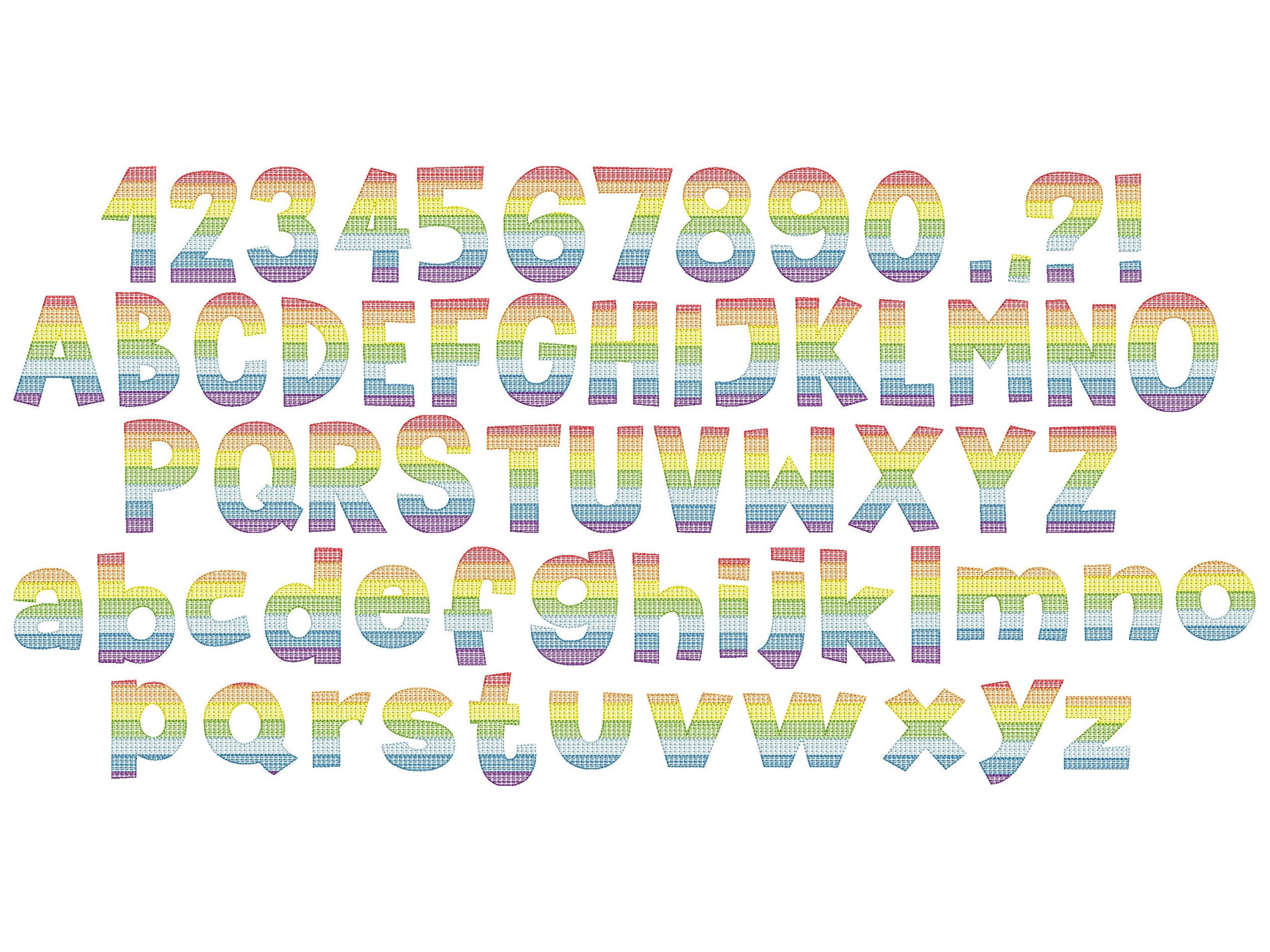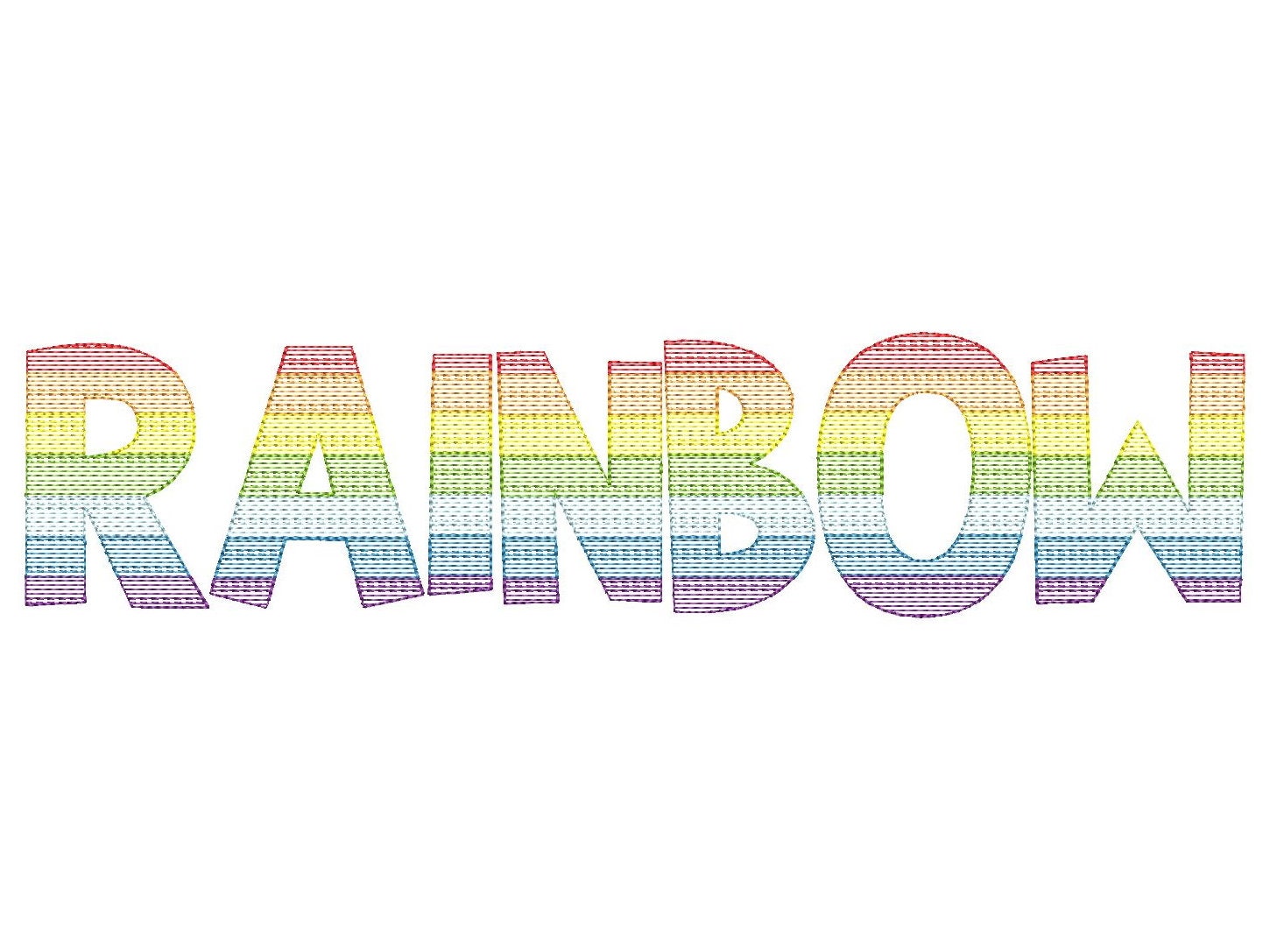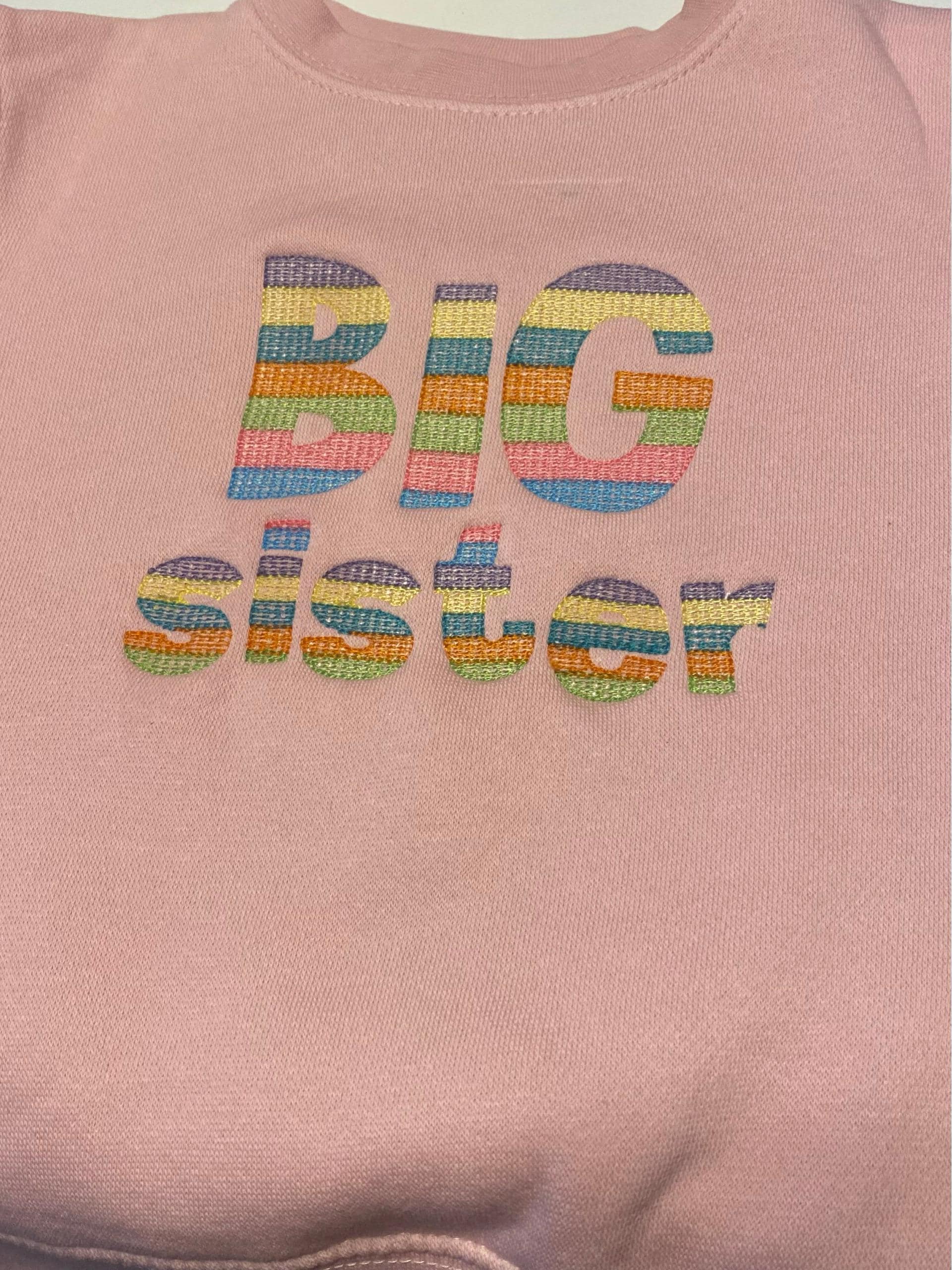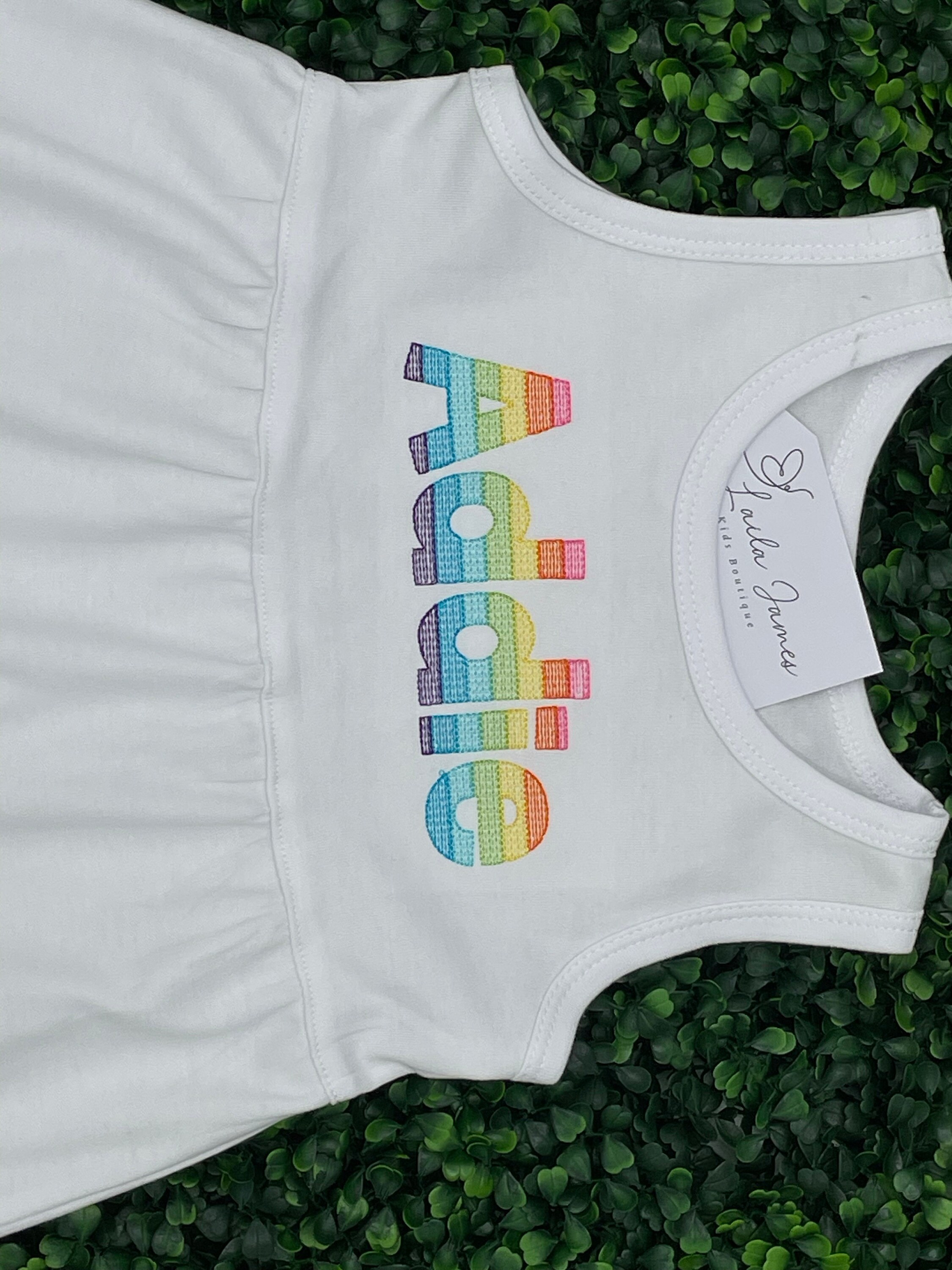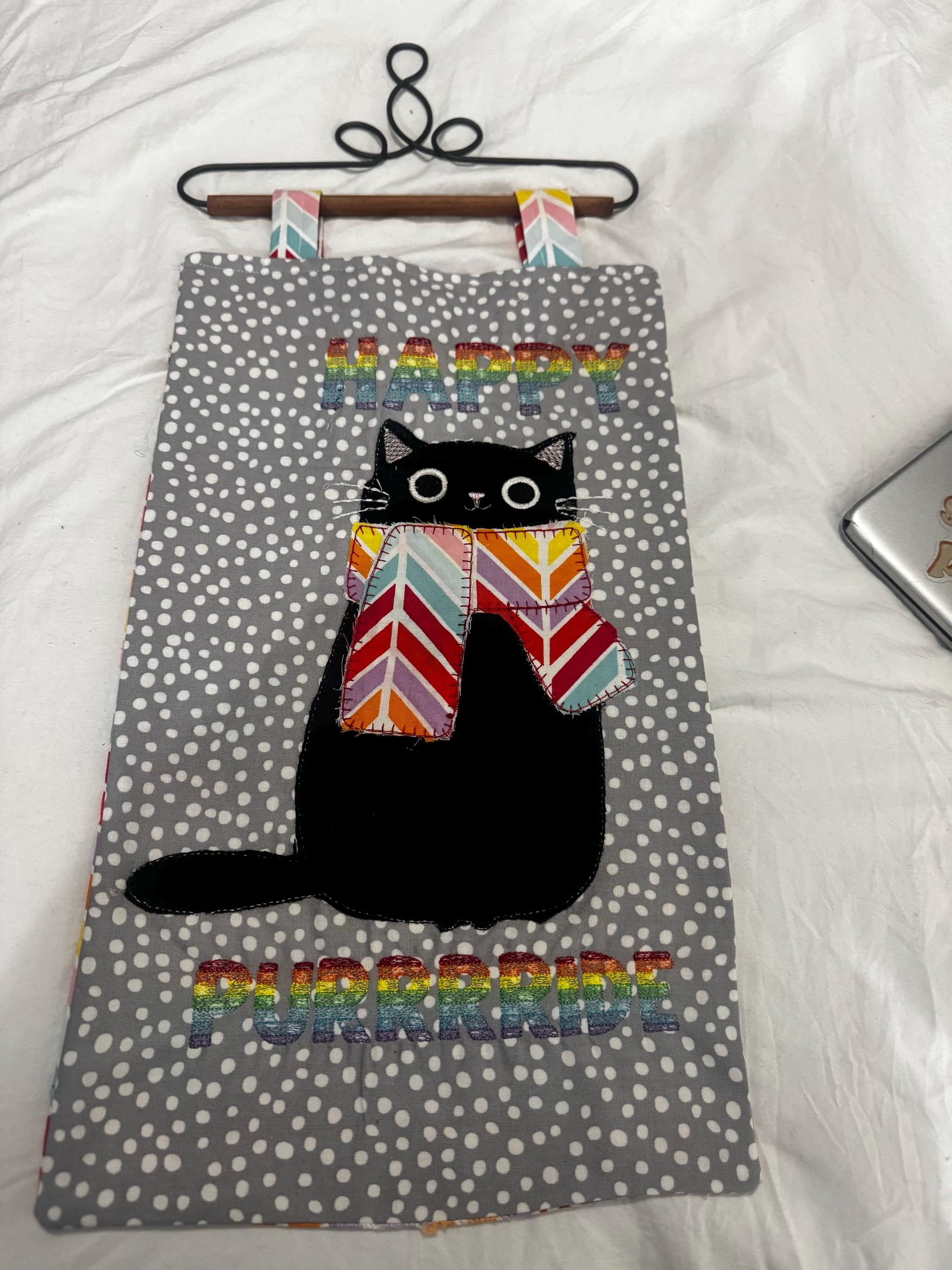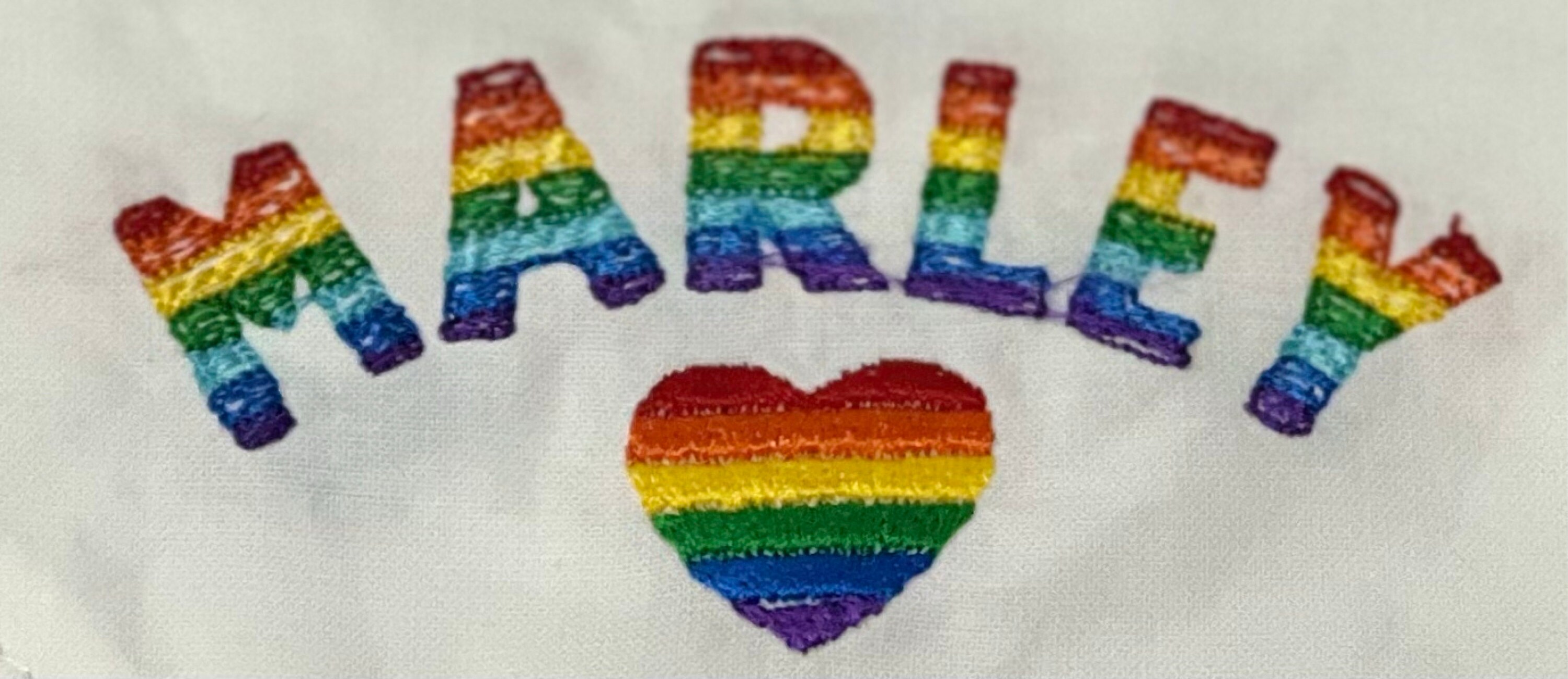
Rainbow Font quick sketch fill bean stitch Font light stitch machine embroidery designs, alphabet letters monogram kids boy girl name
This font is a quick stitch and it has a low density, light fill stitch and bean stitch outline.
It looks best on white or light color fabrics. The background fabric looks through. Stunning effect!
Whole alphabet uppercase and lowercase letters A-Z, numbers 0-9, and punctuation . , ? !